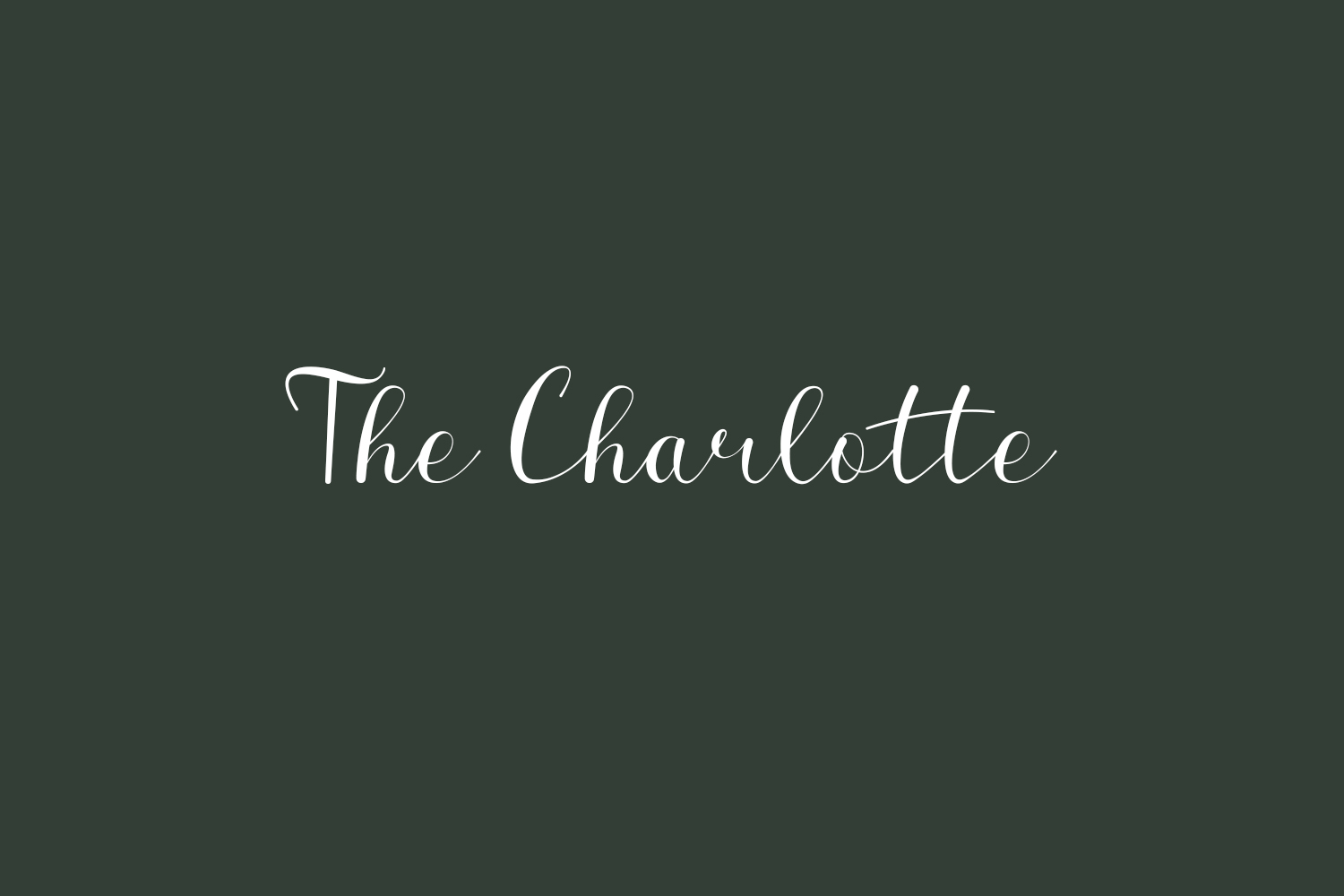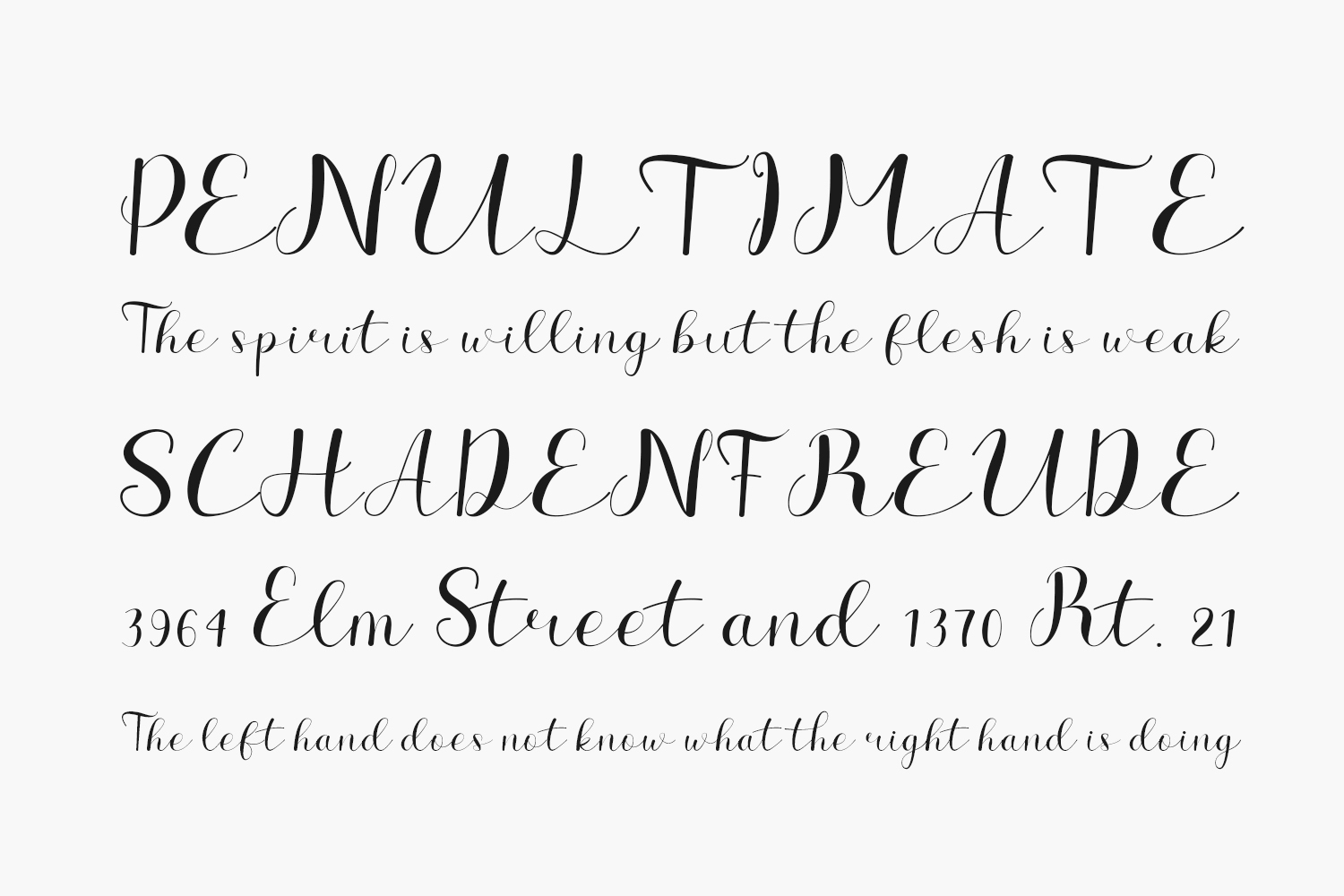
The Charlotte Free Font is a ravishing and dainty script font. This font is neatly crafted and highly detailed. Whatever the topic, this font will be a wonderful asset to your font library, as it has the potential to enhance any creation. The Charlotte Free Font was designed by Danik Janandi and is free for personal use only. Please purchase the full version for commercial use.